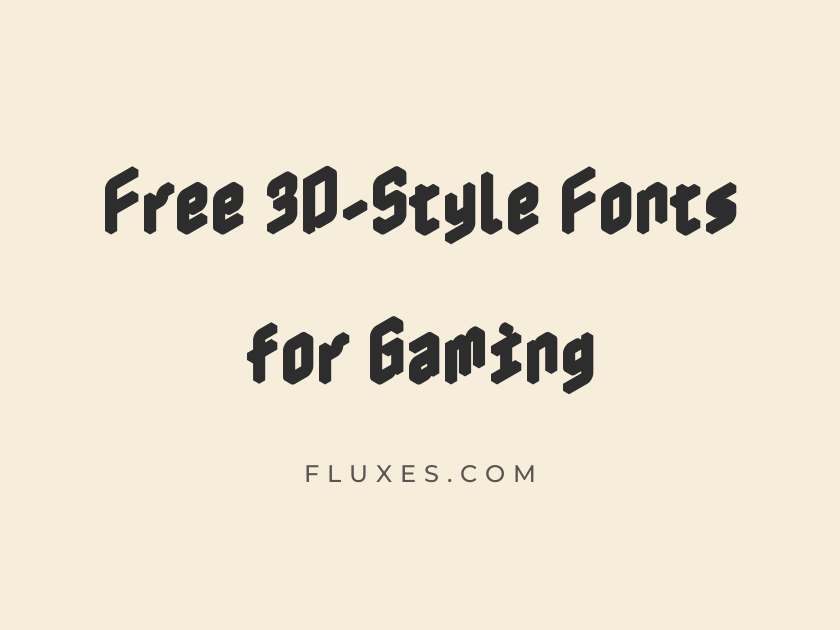
68 Best Free 3D-Style Fonts for Gaming
Gaming type has always leaned into weight, bevels, and dimension: chunky letterforms that look like they could survive a boss fight, neon that hums like an arcade cabinet, and pixel grids that carry the DNA of the earliest consoles. Whether you are building a logo for an indie title, a HUD for a sci-fi shooter, or promo art for a retro-styled release, free 3D-style fonts for gaming from Google Fonts can carry that chunky, extruded, larger-than-life energy without any licensing headaches. This roundup covers genuine dimensional and shadowed display faces alongside the bold, futuristic, and pixel-driven styles that read as “gaming” the instant a player sees them.
1. Nabla
Nabla
Few fonts on Google Fonts deliver actual extruded, chromatic 3D the way Nabla does. It is a variable color font with adjustable depth and shadow, making it the closest thing to a native “3D text generator” built right into a webfont, ideal for hero logos and title screens that need real dimensionality rather than a faked bevel.
It works best large, where the layered depth reads clearly; at small sizes the effect collapses into noise, so save it for splash screens and key art rather than body copy.
2. Bungee Shade
Bungee Shade bakes a drop shadow directly into the letterforms, giving flat text an instant pop-art, arcade-cabinet lift. It is a fast way to get a dimensional logotype without touching a design tool.
3. Bungee Inline
Where Bungee Shade fakes depth with a shadow, Bungee Inline does it with a hollow outline that suggests carved, sculpted signage. It pairs naturally with its solid sibling for layered title treatments.
4. Bungee
The base Bungee face is blocky, urban, and confident, originally inspired by street signage. On its own it already reads as bold arcade branding, and it becomes even more useful once stacked with the shade and inline variants for a full 3D signage effect.
5. Rubik Doodle Shadow
Rubik Doodle Shadow
Rubik Doodle Shadow takes a playful, hand-inked letterform and drops a raw sketchy shadow behind it, landing somewhere between a kid’s game and a scrappy indie platformer. It suits casual, colorful titles far more than anything gritty or militaristic.
6. Rubik Iso
Rubik Iso
This one is built around a genuine isometric projection, each letter drawn as if extruded along a 3D axis. It is a natural fit for city-builders, base-building strategy games, or any branding that wants to nod to isometric level design.
7. Rubik Puddles
Rubik Puddles
Rubik Puddles renders letters as glossy, reflective blobs, almost like liquid metal or slime. Use it sparingly, for a swamp level logo or a slime-themed boss, since its wet, rounded shapes get muddy fast at small sizes.
8. Rubik Moonrocks
Rubik Moonrocks
Craggy, chunky, and textured like carved stone, Rubik Moonrocks feels tailor-made for mining sims, survival-crafting titles, or anything set in an asteroid belt. It has a tactile, sculpted quality that flat display fonts simply cannot fake.
9. Rubik Distressed
Rubik Distressed
Weathered edges and a battered texture give Rubik Distressed the look of type that survived an explosion. It reads as post-apocalyptic and war-torn, a strong match for gritty shooter or survival branding.
10. Rubik Glitch
Rubik Glitch
Rubik Glitch fractures its letterforms with digital artifacting, perfect for cyberpunk interfaces, hacking sequences, or a “corrupted save file” moment in a narrative game. It is a mood font first and a readable typeface second.
11. Rubik Wet Paint
Rubik Wet Paint
Dripping, uneven strokes give this face a graffiti-adjacent energy, well suited to skate games, urban open-world titles, or anything that wants a rebellious streak. It is loud enough that a short word or two goes further than a full sentence.
12. Rubik Beastly
Rubik Beastly
Spiky, feral, and slightly menacing, Rubik Beastly leans into fantasy and monster-hunting themes. It works well as an accent on a creature roster screen or a boss-name reveal.
For UI work, test every font at the actual size it will render on screen. Many of the boldest, most dimensional fonts here look spectacular at poster size but blur or clog at button-label size.